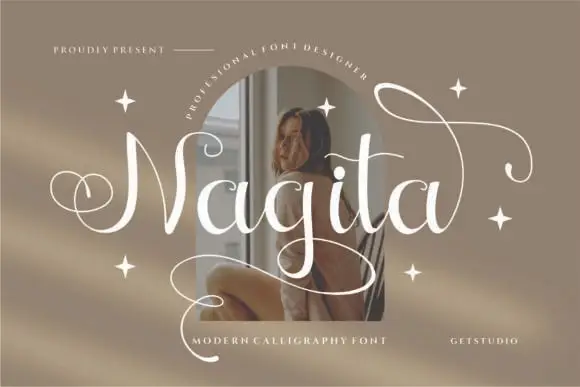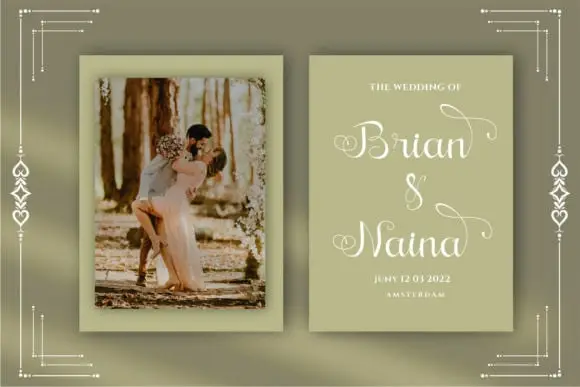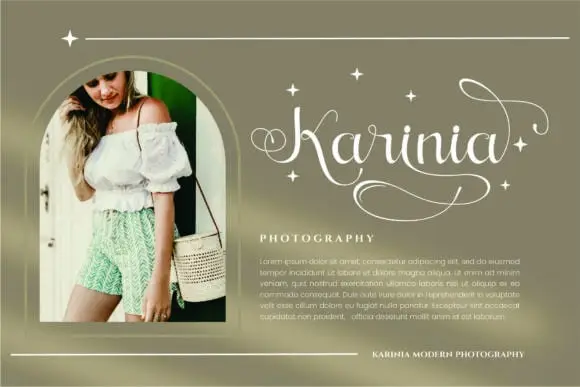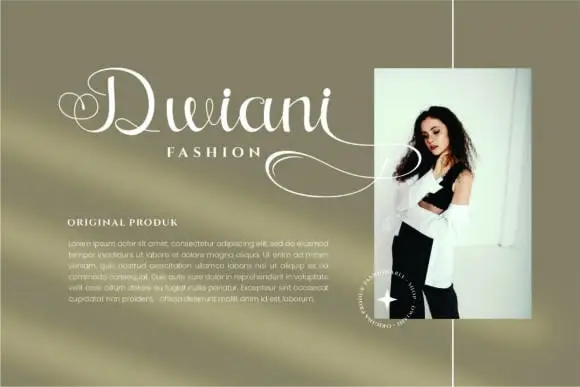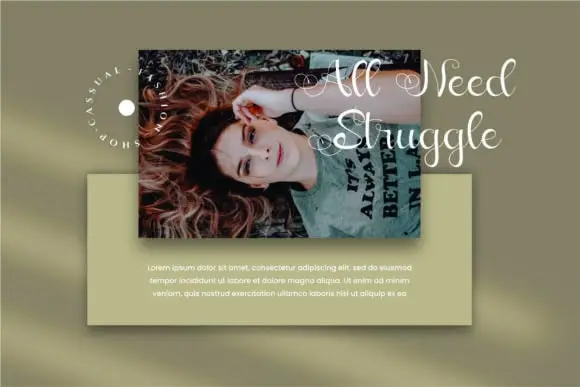
Nagita Font
The Nagita Font is a versatile typeface designed to elevate your creative projects. With its clean lines and modern aesthetic, this font is perfect for a variety of applications, including branding, logos, web design, and print materials.
• Multiple weights for flexibility in design
• Stylish and contemporary look
• Easy to read, making it suitable for both headlines and body text
Utilize the Nagita Font for creating eye-catching logos, engaging websites, or striking print materials. Its versatility allows it to adapt to different design contexts seamlessly.